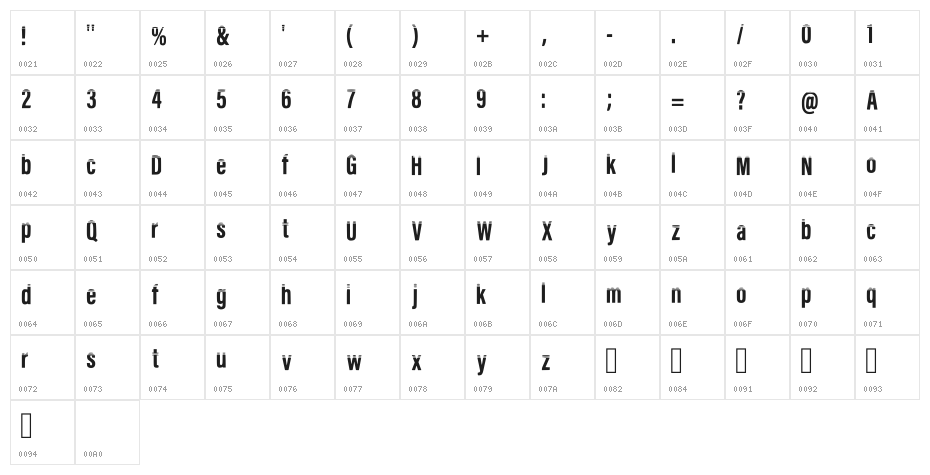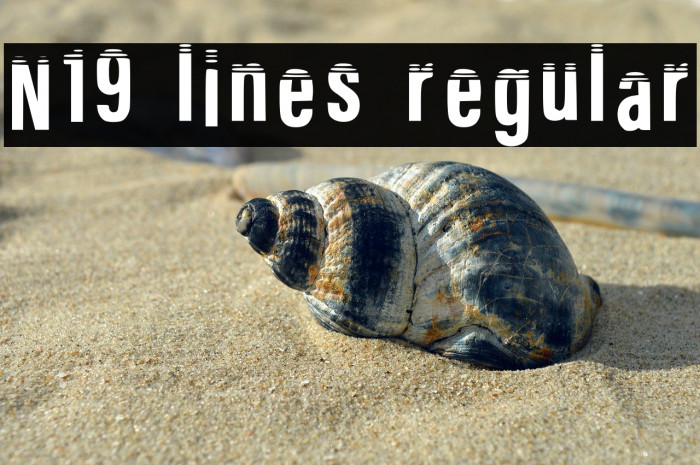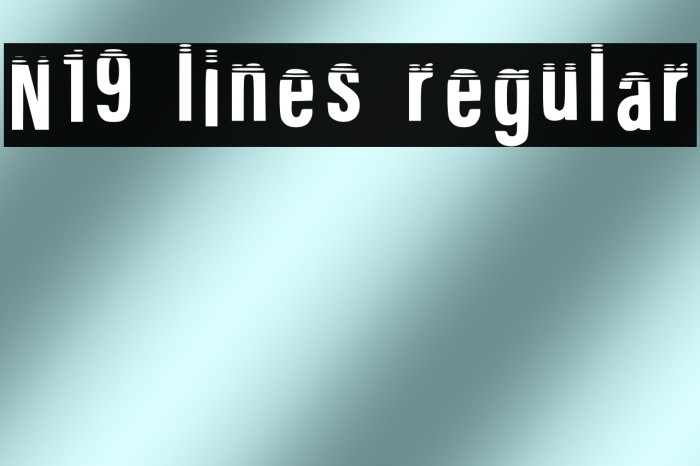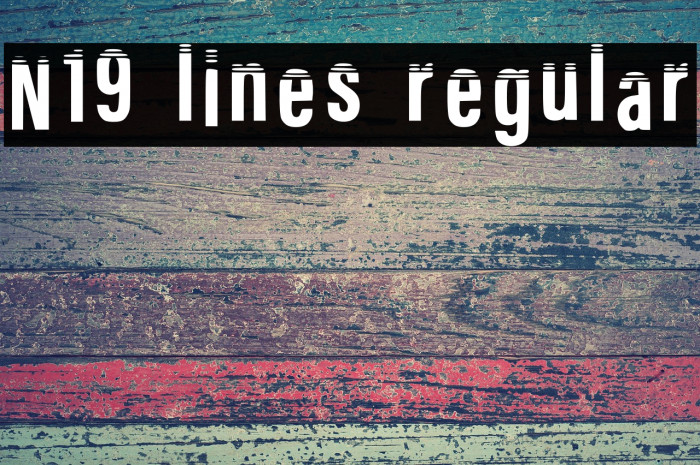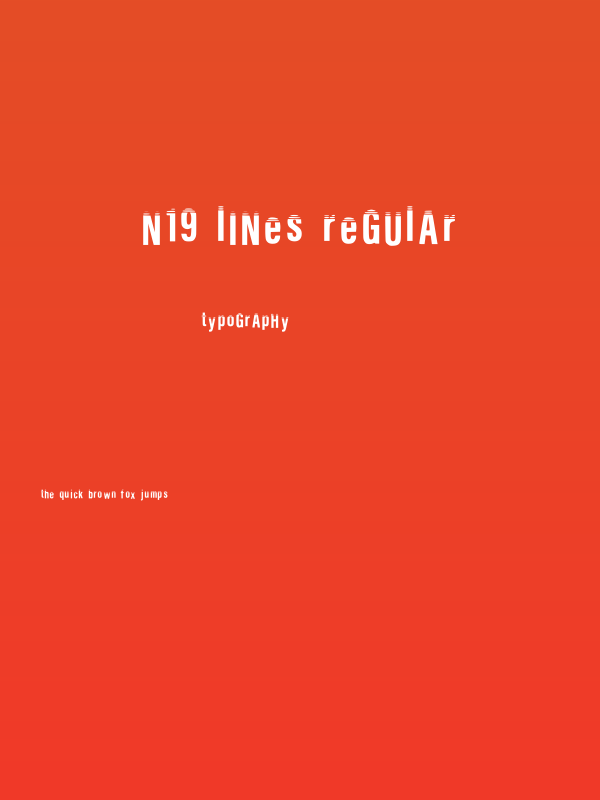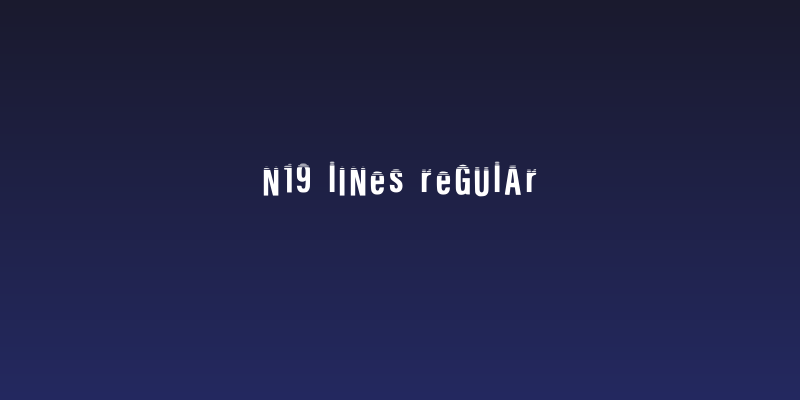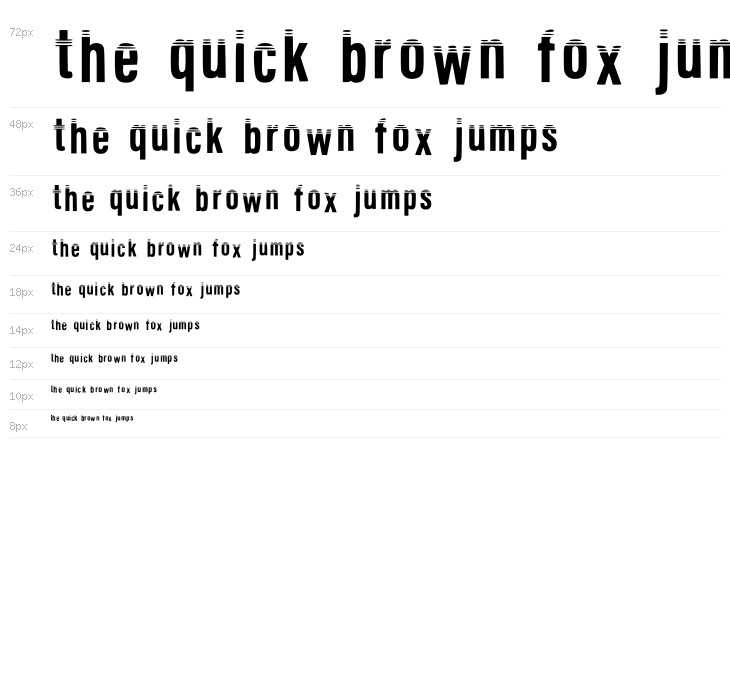
N19 Lines Regular Font
N19 Lines Regular Description
This font features a bold and striking design with a unique horizontal line pattern across each character, creating a sense of movement and energy. The uppercase and lowercase letters maintain a consistent width, contributing to a uniform appearance. The numbers and special characters follow the same stylistic approach, ensuring cohesion throughout. The overall look is modern and dynamic, making it suitable for projects that require a strong visual impact.
| Proposed Projects | Ideal for branding, posters, and headlines where a bold statement is needed. |